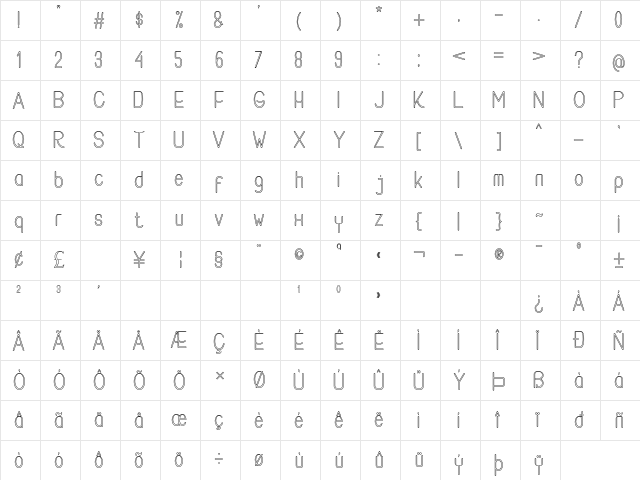
Buon Umore Hollow
| Style | Hollow |
Design Context for Buon Umore Typeface
Buon Umore offers clean, dependable letterforms without strong stylistic allegiance, making it a practical choice for designers who need flexibility.